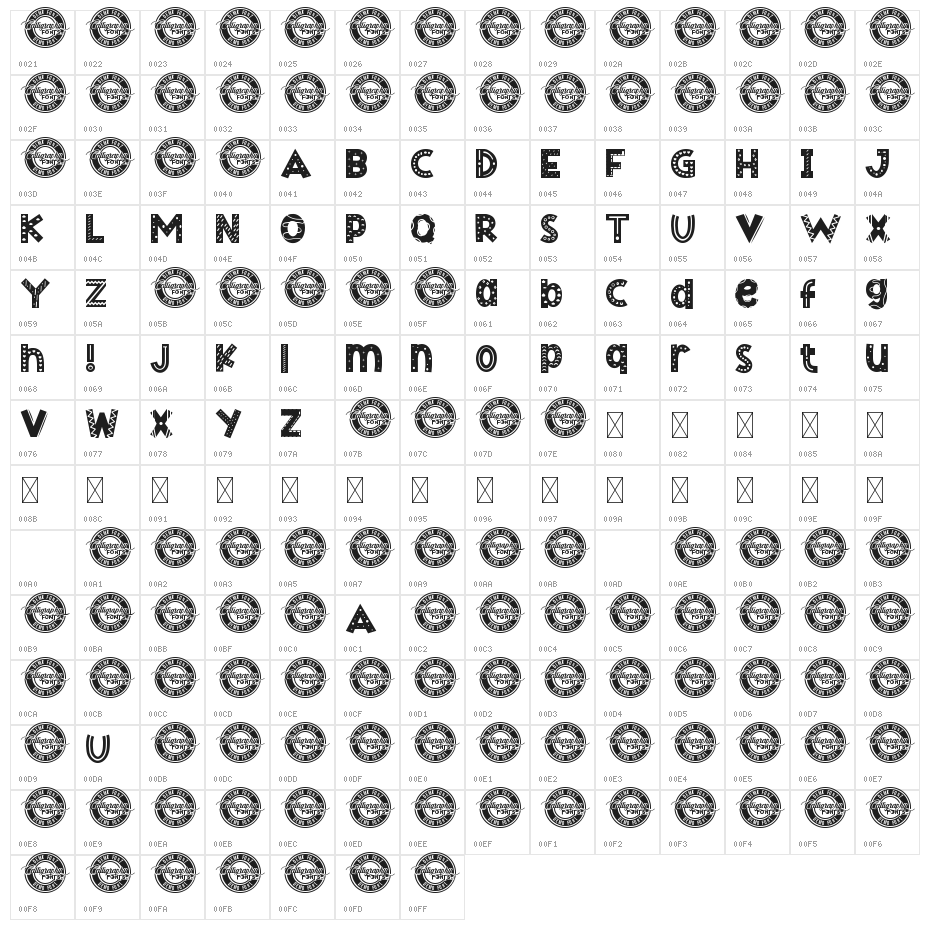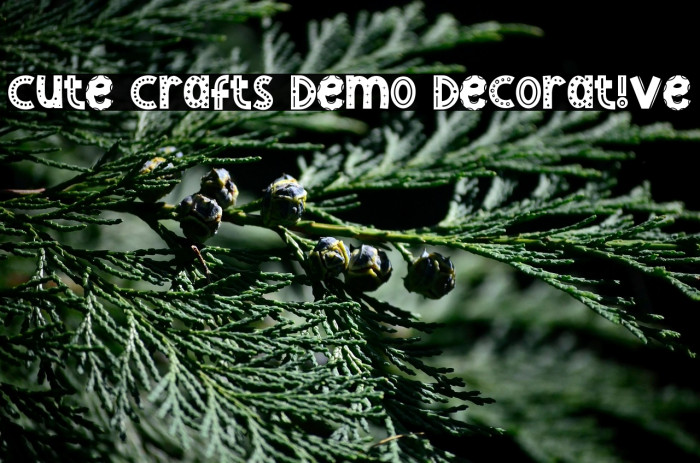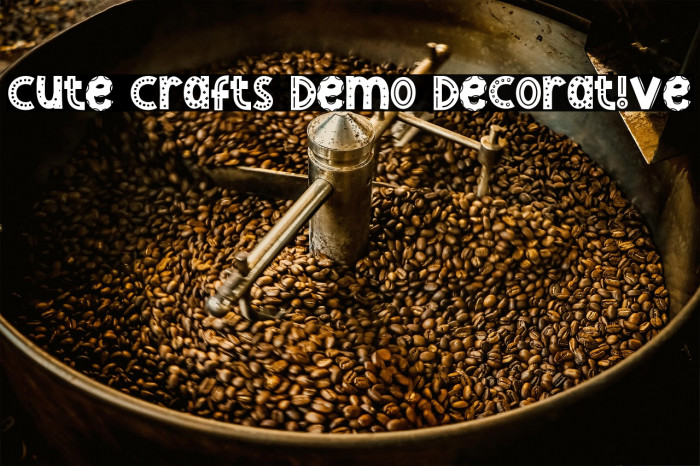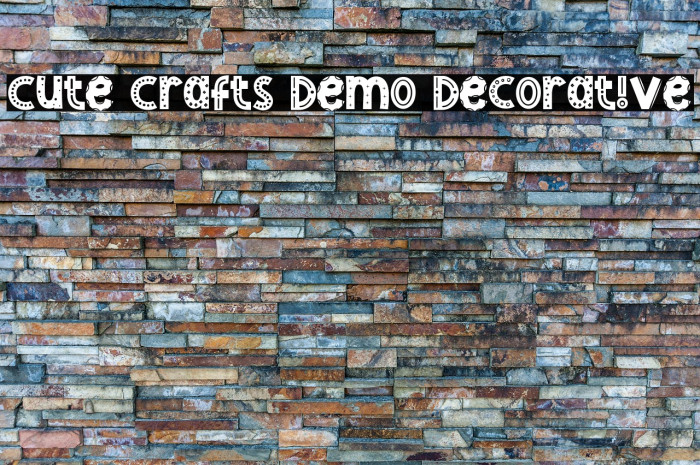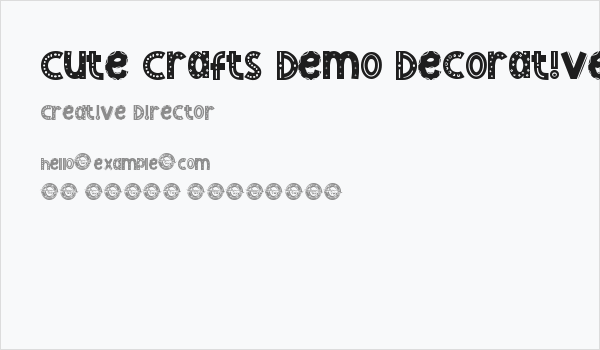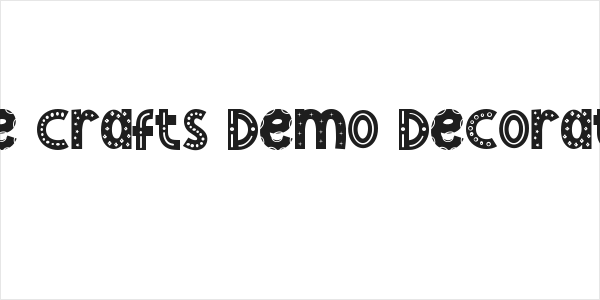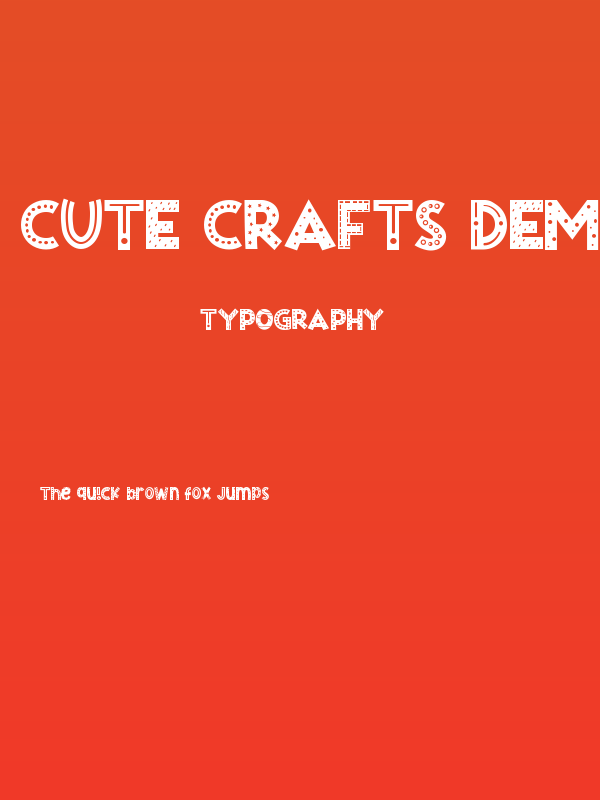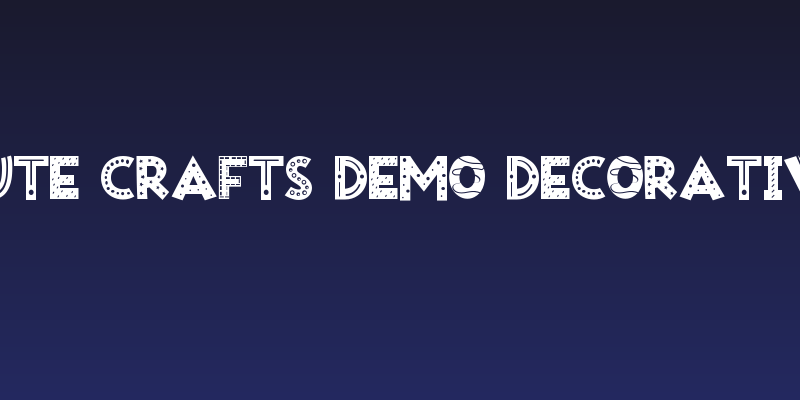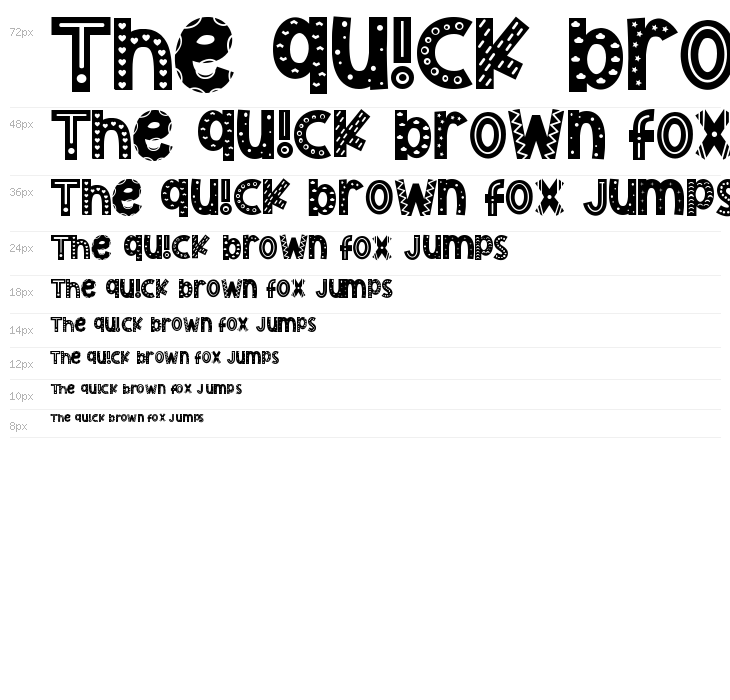
Cute Crafts Demo Decorative Font
Cute Crafts Demo Decorative Description
This playful and decorative font features a variety of whimsical patterns and textures within each character, making it ideal for creative and fun projects. The uppercase and lowercase letters are adorned with dots, stripes, and zigzags, adding a lively and dynamic feel. The characters are bold and eye-catching, perfect for grabbing attention. The font includes a full set of uppercase and lowercase letters, numbers, and a selection of special characters, each designed with unique decorative elements. Its bold and playful style makes it suitable for children's projects, crafts, and any design that requires a touch of whimsy.
| Use Case | Headlines, Logos, Crafts |
| Proposed Projects | Ideal for children's books, craft projects, party invitations, and playful branding. |